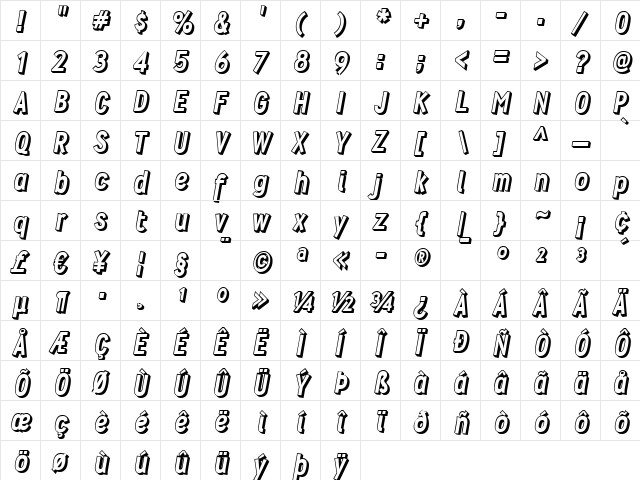
Wyvern Blocko Regular
Design Context for Wyvern Blocko Typeface
Wyvern Blocko is a composed and adaptable typeface that performs quietly and consistently across a wide range of design contexts.